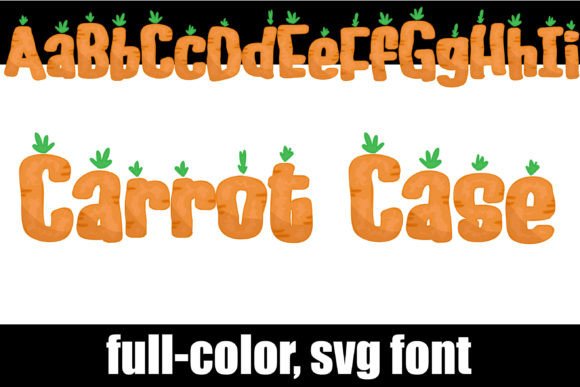
Step into a world of color and creativity with Carrot Case Font, the ultimate font family for those seeking a touch of whimsy and vibrancy in their designs. With its palette inspired by the joyous hues of carrots, Carrot Case brings life to your projects with each letter bursting with a cheerful orange and verdant green.
Whether you're a seasoned designer or just starting, Carrot Case will ignite your imagination. Crafted by Illustration Ink, this font family is designed to turn heads and make your creations stand out. The playful nature of Carrot Case makes it perfect for adding a dash of cheer to invitations, greeting cards, posters, and social media posts. It's also an excellent choice for branding and marketing materials that aim to grab attention and leave a lasting impression.
Unleash your inner artist and let Carrot Case transform your designs into captivating masterpieces. Its bold and eye-catching characters demand attention, making it ideal for headlines, logos, and any element that deserves to shine. The bright orange and green hues create a sense of joy and energy, adding a playful touch to your work.
Carrot Case is not just visually stunning; it's also versatile and adaptable. Its unique charm lends itself to a wide range of design styles, from whimsical and playful to elegant and sophisticated. Whether you're creating digital or print materials, Carrot Case will seamlessly integrate into your vision, bringing life and personality to your projects.
But Carrot Case is more than just a font; it's an experience. It's a journey into a world of color and creativity, where your designs take center stage. So, embrace the vibrancy of Carrot Case, let your imagination soar, and create projects that radiate joy and charm. Trust us, your audience will be smitten with the Carrot Case charm.